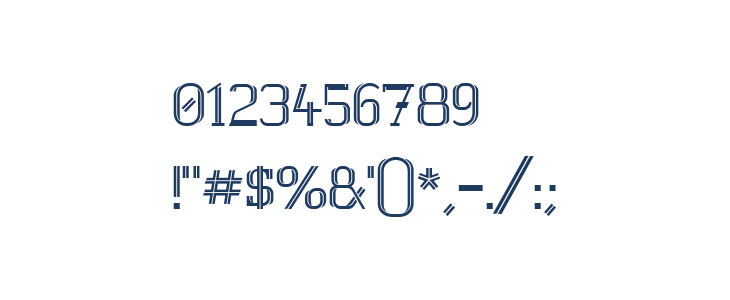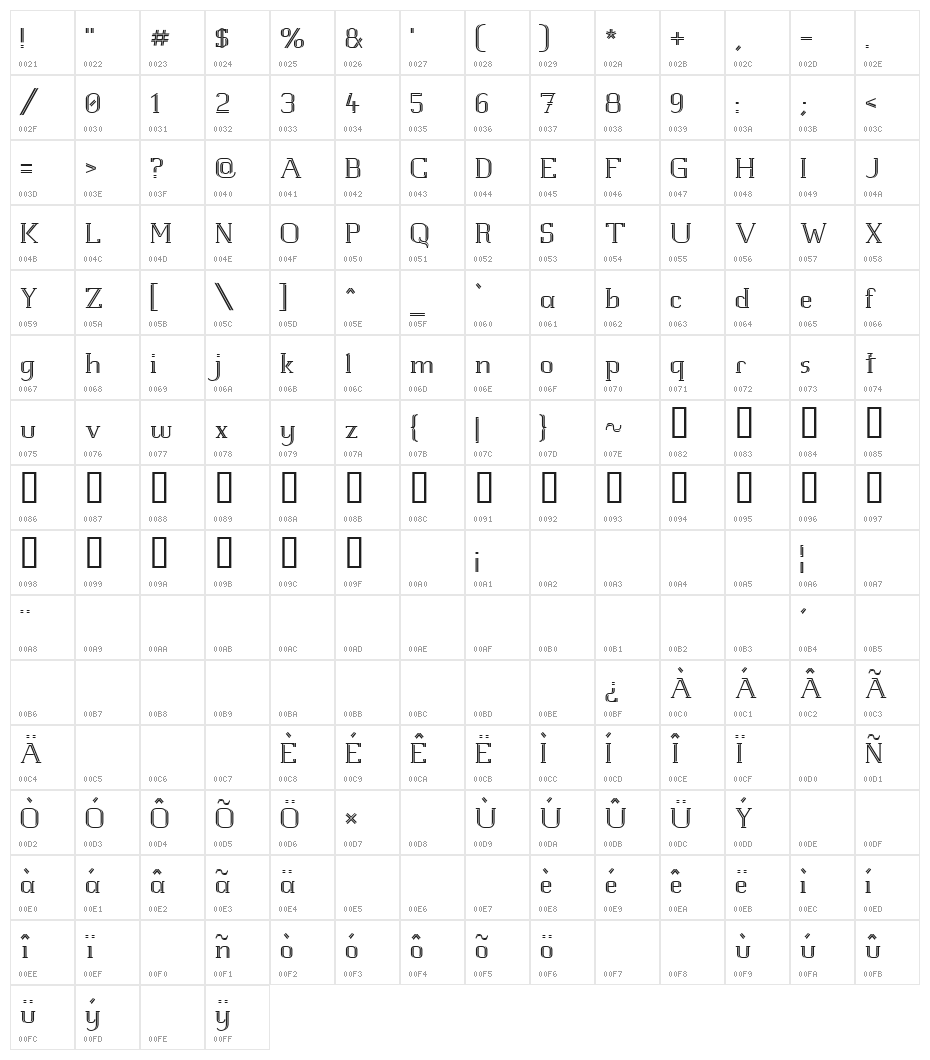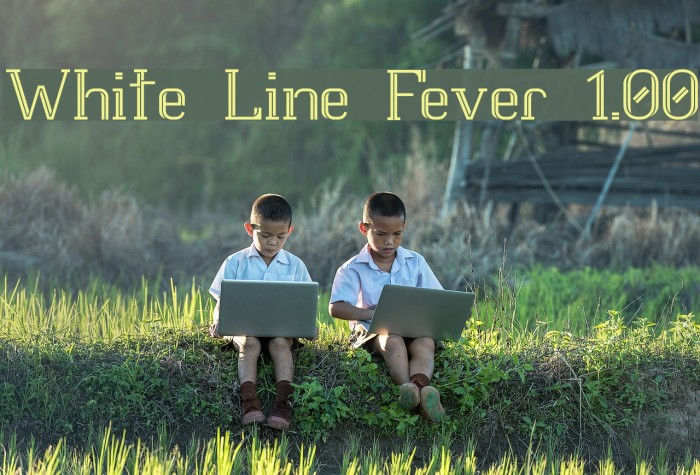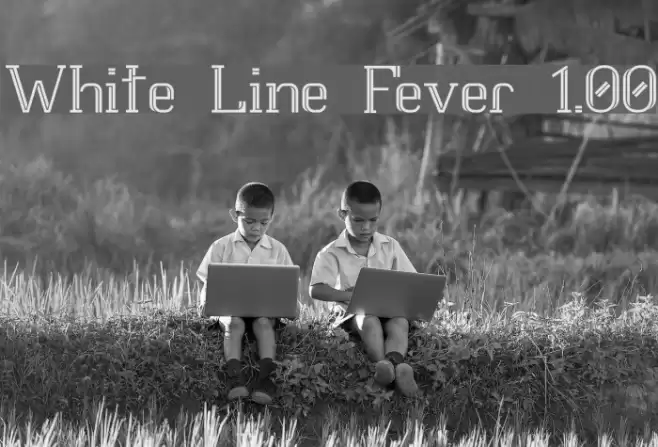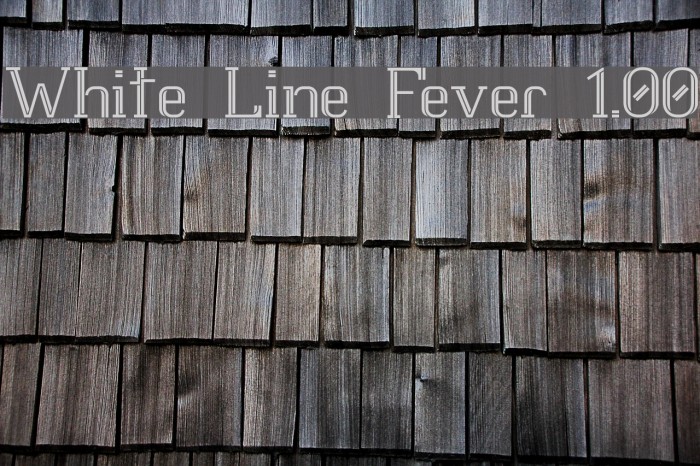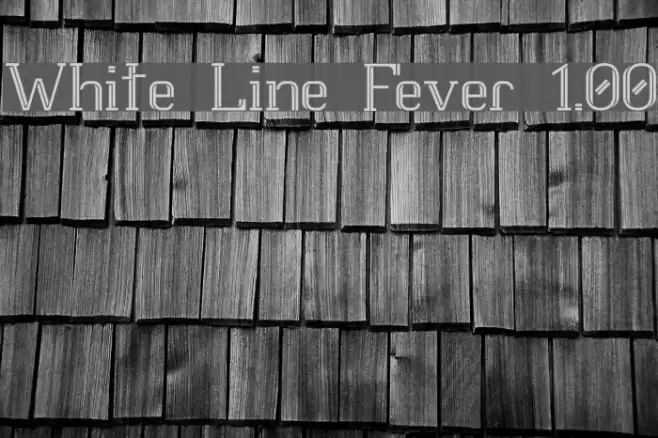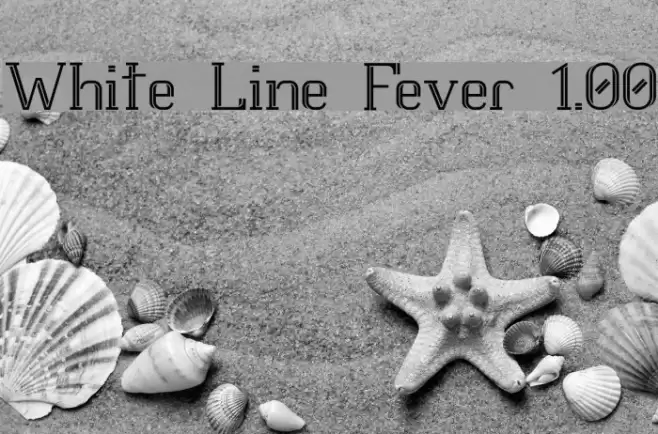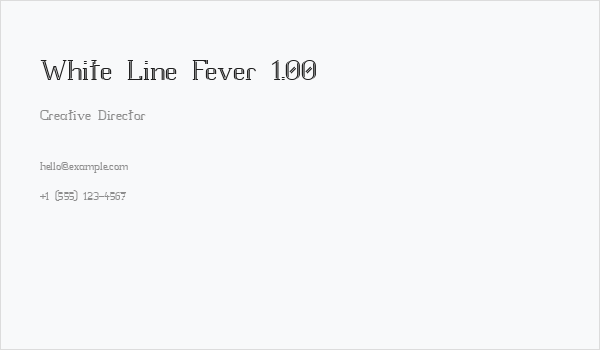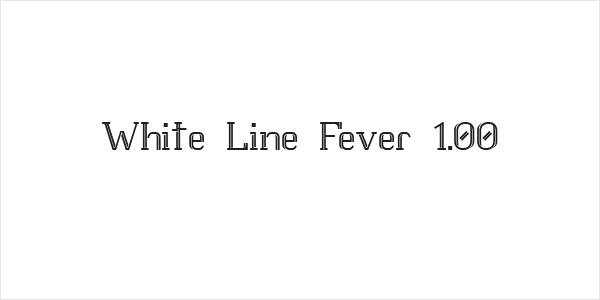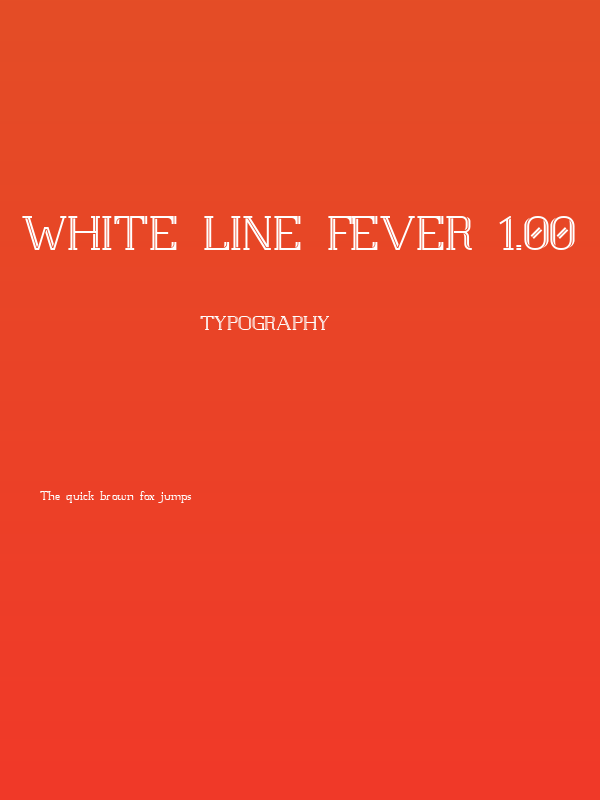
White Line Fever 1.00 Font
White Line Fever 1.00 Description
This font features a unique blend of modern and vintage elements, characterized by its geometric and structured letterforms. The uppercase letters are bold and commanding, with sharp angles and clean lines, while the lowercase letters maintain a consistent style with a slightly softer touch. The numerals are distinct and easily readable, matching the overall aesthetic of the font. Special characters are designed with the same attention to detail, ensuring a cohesive look across all glyphs. The font's design is both decorative and functional, making it suitable for a variety of creative projects.
| Proposed Projects | Ideal for branding, poster design, and editorial layouts where a bold statement is needed. |